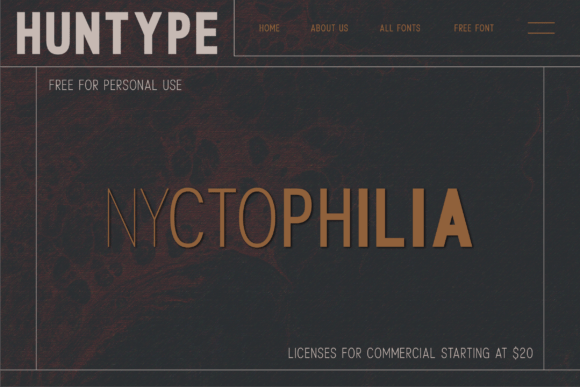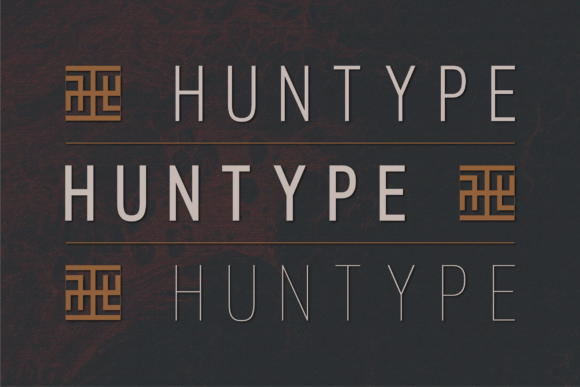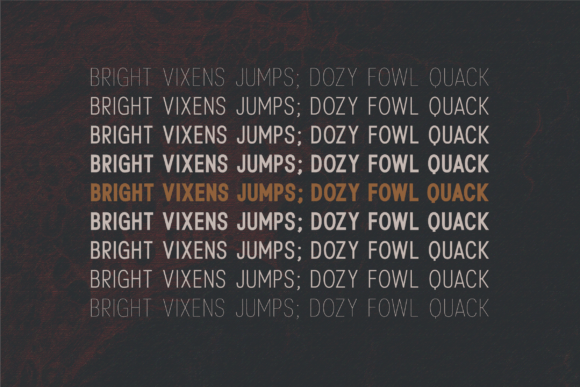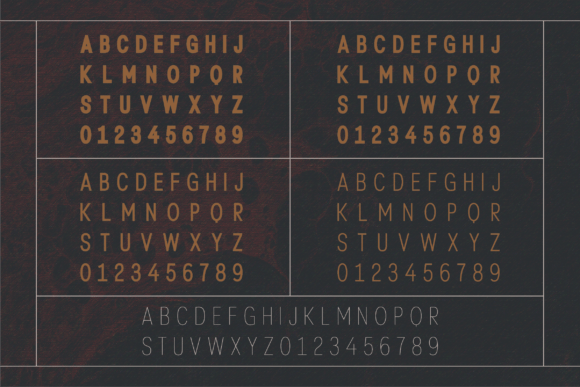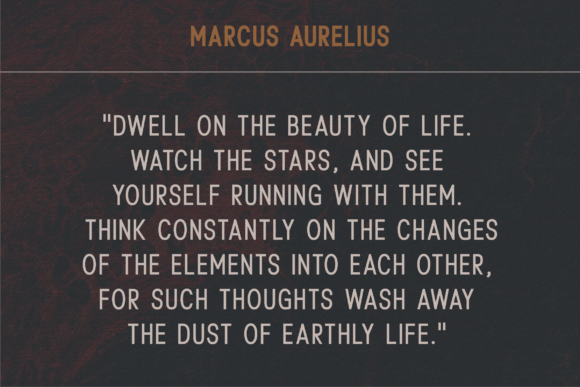
Discovering the Perfect Font for Your Creative Project
As a designer, have you ever found yourself stuck in a creative rut, searching for the perfect font to elevate your project from ordinary to extraordinary? It’s a moment we’ve all experienced – the one where you’re pouring your heart and soul into a design, and the only thing missing is that elusive font that will make it truly shine. For me, that moment came when I stumbled upon the Nyctophilia Font, a modern and versatile font family that would change the game for me and countless designers like me.
What makes Nyctophilia Font so special? Its unique blend of clean geometric forms and subtle sophistication makes it the perfect design resource for any creative project. Whether you’re working on a branding project, creating a logo, or crafting headlines, this font family is sure to deliver a high-quality result that will leave a lasting impression.
Introduction to Nyctophilia Font
With its precise letterforms and contemporary aesthetic, Nyctophilia Font is a valuable addition to any designer’s toolkit. Its adaptable style and range of weights make it an excellent choice for exploring various design applications, from digital projects with transparent backgrounds to print materials that require a professional touch. And the best part? You can download the Nyctophilia Font for free, making it an accessible and affordable design resource for creatives of all levels.
Key Features of Nyctophilia Font
- High-quality design resource ideal for creative projects, including graphic design, digital art, and typography.
- Features a unique, intricate design with a transparent background, allowing for seamless integration into any design.
- Comes in a range of sizes, from 12pt to 72pt, making it suitable for various design applications.
- Perfect for designers looking for a distinctive, high-quality font to elevate their creative projects.
Honest Review: Nyctophilia Font
I recently had the chance to try out the Nyctophilia Font, and I must say it’s been a great addition to my design resource library. ✨ This font is perfect for creative projects that require a touch of elegance and sophistication.
The quality of the font is top-notch, with crisp lines and smooth curves that make it easy to read. I was also impressed by the transparent background, which makes it easy to layer with other design elements.
Here are some of the things that work well with the Nyctophilia Font:
- High-quality design that looks great on both screens and print materials
- Easy to read and use in a variety of creative projects
- Transparent background makes it easy to layer with other design elements
Overall, I’m really impressed with the Nyctophilia Font and would definitely recommend it to designers who are looking for a high-quality font for their creative projects. It’s a great addition to any design resource library, and it’s available for free download in some cases, making it an even more valuable asset for designers.
Nyctophilia Font
The Nyctophilia Font is a high-quality design resource perfect for creative projects. It can be downloaded for free, providing a transparent background for seamless integration into your work.
Tips for Getting the Most Out of the Nyctophilia Font
Use the Nyctophilia Font in bold or italic styles to add emphasis to your text. Experiment with different font sizes to create visual interest. Combine the font with other design elements to create a cohesive and visually appealing design.
The Nyctophilia Font is ideal for use in creative projects, such as:
- Graphic design and branding
- Typography and font-based art
- Print and digital marketing materials